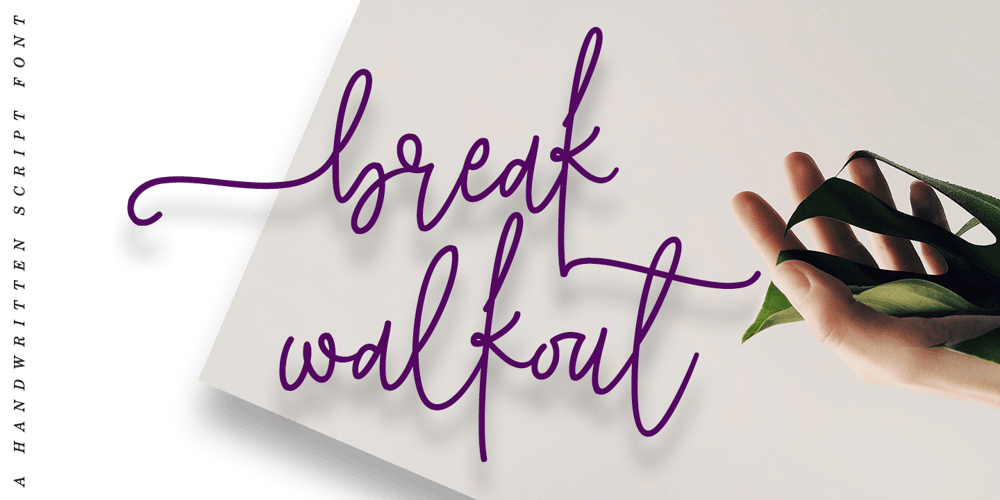
Break Walkout Font Family was designed by Alde Saputro and published by Aldedesign. Break Walkout contains 2 styles and family package options. Break Walkout is a simple, yet classy signature typeface. It includes beautiful swashes that will add an organic feel to any design project!This font is a stylish signature font that is inspired by modern photography. It’s easy to use, to create a stunning watermark for your photos, invitations, branding.It also works great as a business signature or on other branding materials.- PUA encoded = Accessible in Adobe Illustrator, Adobe Photoshop, Adobe InDesign, even work on Microsoft Word.- PUA Encoded Characters – Fully accessible without additional design software.How to access alternate glyphs? you can see it on this link: http://goo.gl/1vy2fv